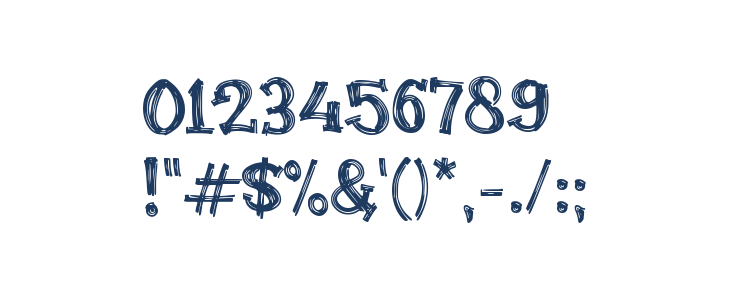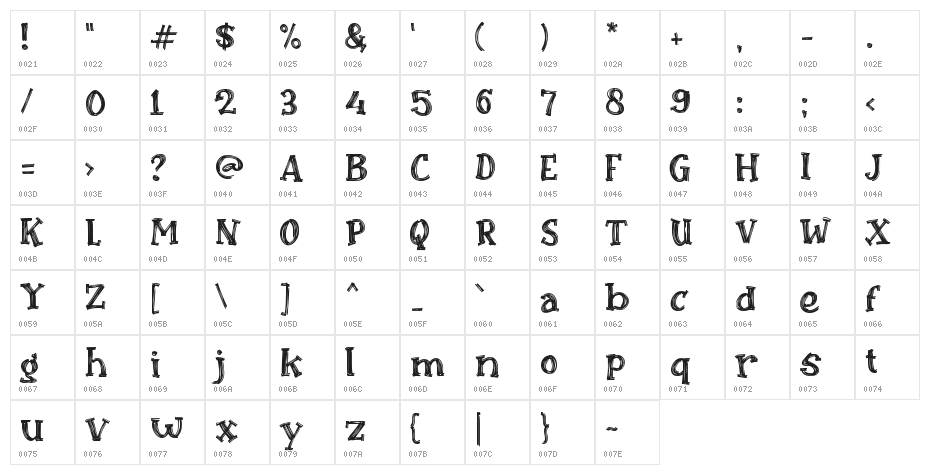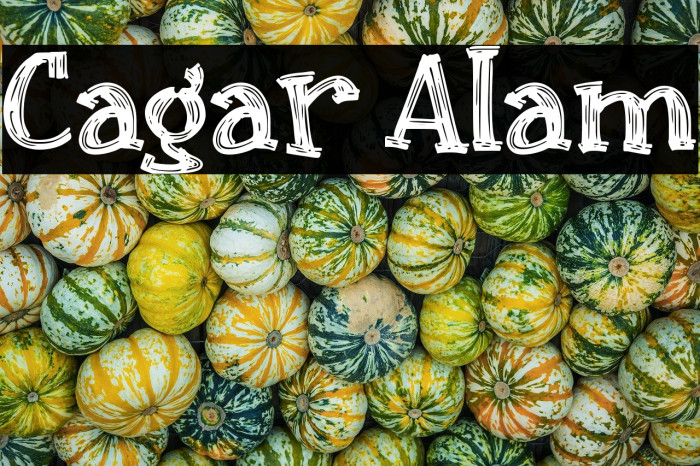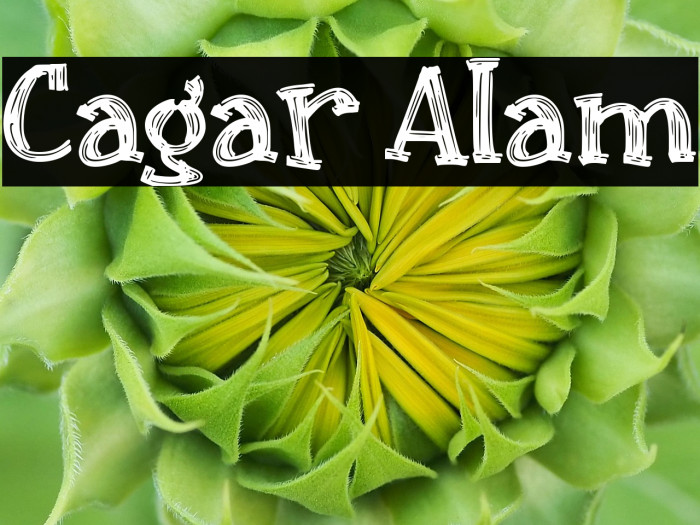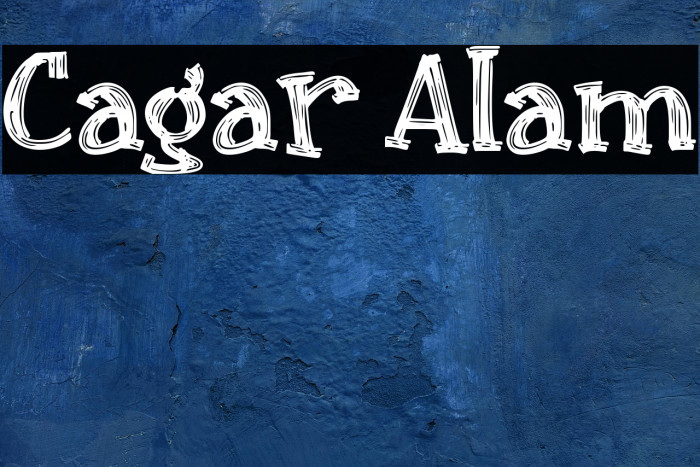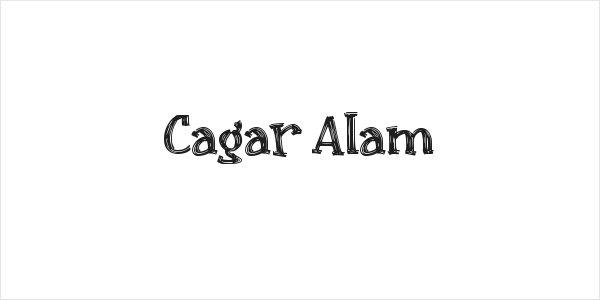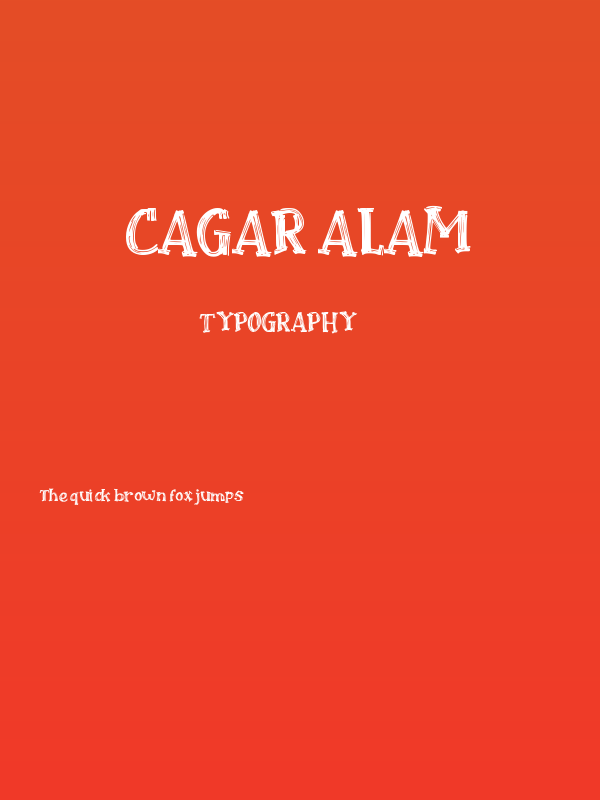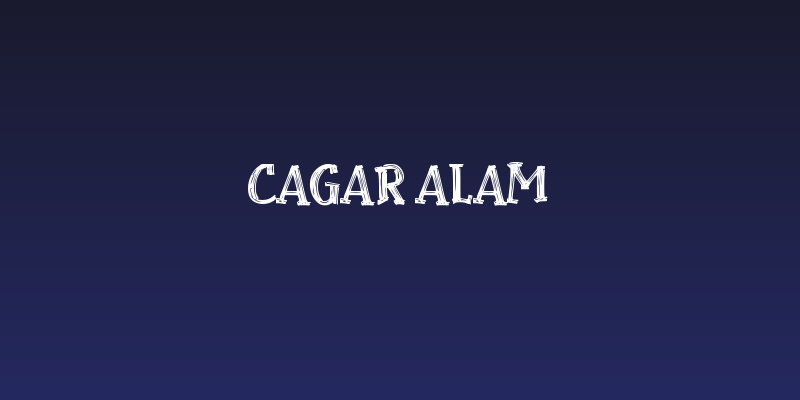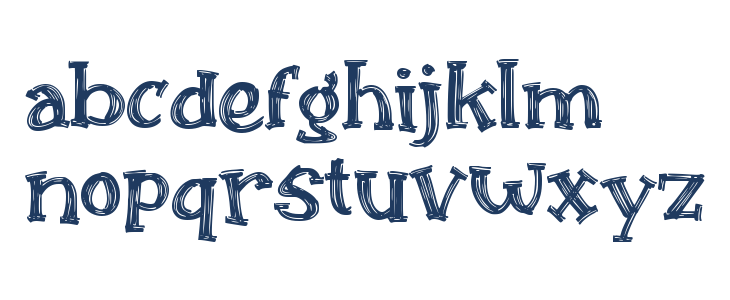
Cagar Alam Font
This font features a playful and artistic style, characterized by its bold and sketch-like appearance. Each letter is crafted with a hand-drawn effect, giving it a unique and informal look. The strokes are uneven and textured, adding a sense of movement and creativity. The uppercase and lowercase letters maintain a consistent style, while the numbers and special characters complement the overall design. This font is ideal for projects that require a whimsical and artistic touch, such as children's books, creative posters, or playful branding.
Overall StyleArtistic, Playful
Proposed ProjectsChildren's books, creative posters, playful branding, artistic invitations.